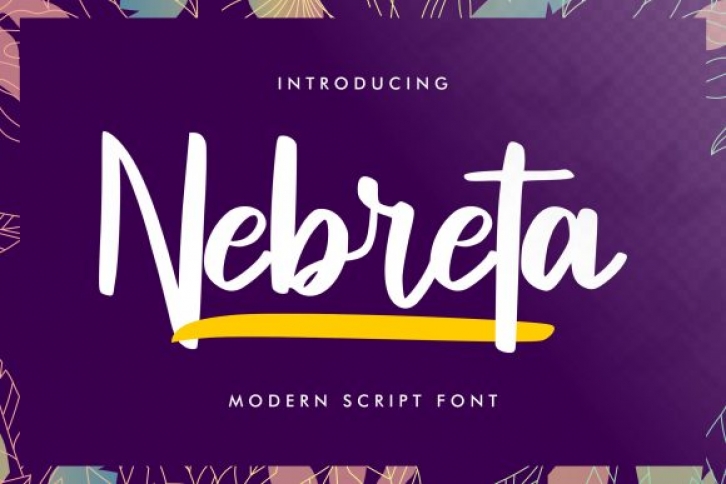
Nebreta is a unique, bold and elegant handwritten font. It looks beautiful on a variety of designs requiring a personalized style, such as wedding invitations, thank you cards, weddings, greeting cards, logos and so on.